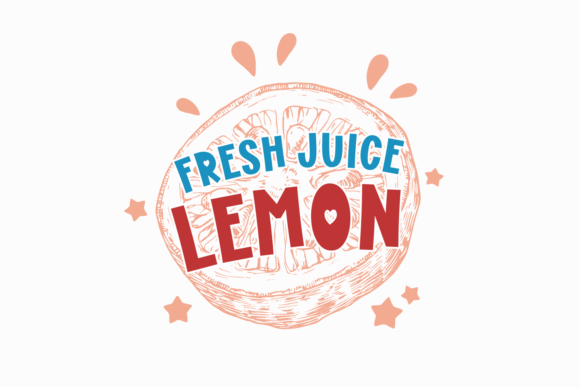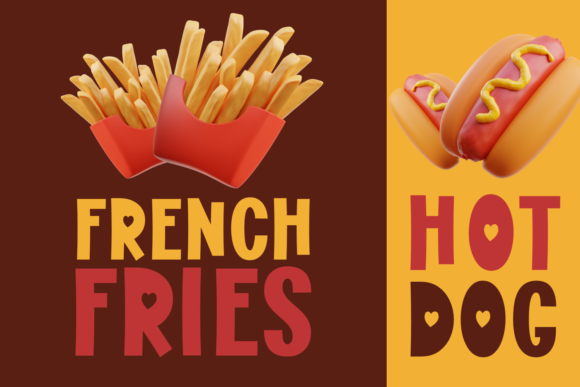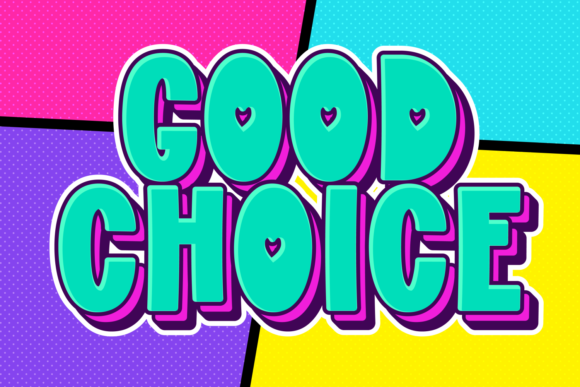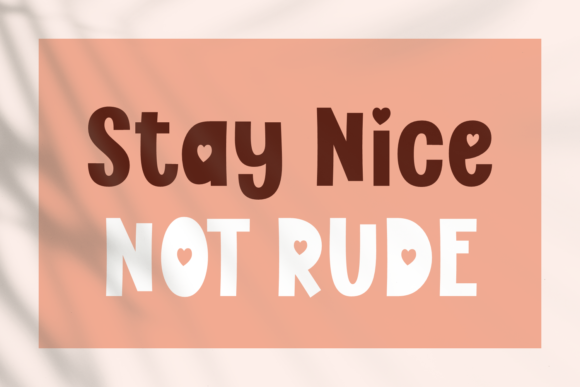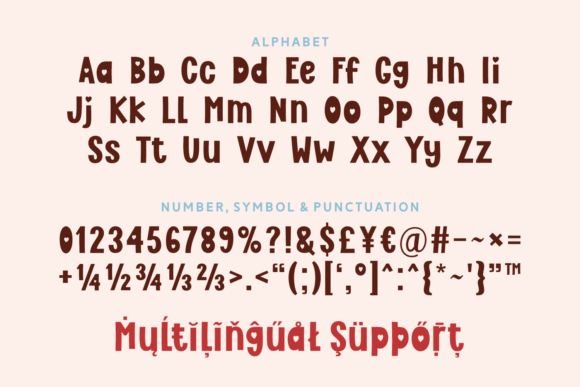
Introduction to Jily Font
Jily is a lovely display font featuring simple characters and a sweet, romantic vibe.
Use this beautiful typeface to complement your wedding invitations, birthday cards, personal branding, and Valentineโs day designs .